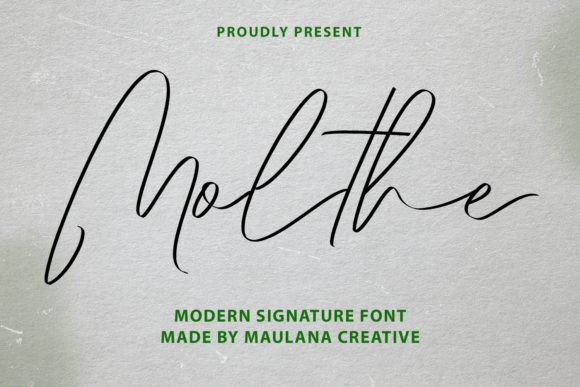
Unleash the Enchanting Charm of Molthe: A Handcrafted Script Font for Every Occasion
Welcome to the world of Molthe, a captivating handwritten font family that combines classic elegance with a modern, fresh appeal. Meticulously crafted by the talented Maulana Creative, Molthe embodies the essence of sophistication and charm, making it the perfect choice for bringing your creative projects to life.
With its graceful curves and elegant strokes, Molthe exudes a timeless beauty that evokes the allure of handwritten letters. Its versatility extends from heartfelt personal correspondence to captivating marketing materials, ensuring your messages leave a lasting impression.
Immerse yourself in the artistry of Molthe and let its distinctive character take center stage in your designs. Whether you're crafting heartfelt holiday letters, designing captivating invitations, or creating personalized logos, Molthe is your ultimate creative companion. Its versatility knows no bounds, seamlessly adapting to a wide range of design styles and purposes.
Step into the world of Molthe and embrace its timeless elegance. Discover the joy of creating with a font that speaks to the heart, making every design project an unforgettable experience. Let Molthe be your secret weapon to capture attention, evoke emotions, and leave an everlasting impact.